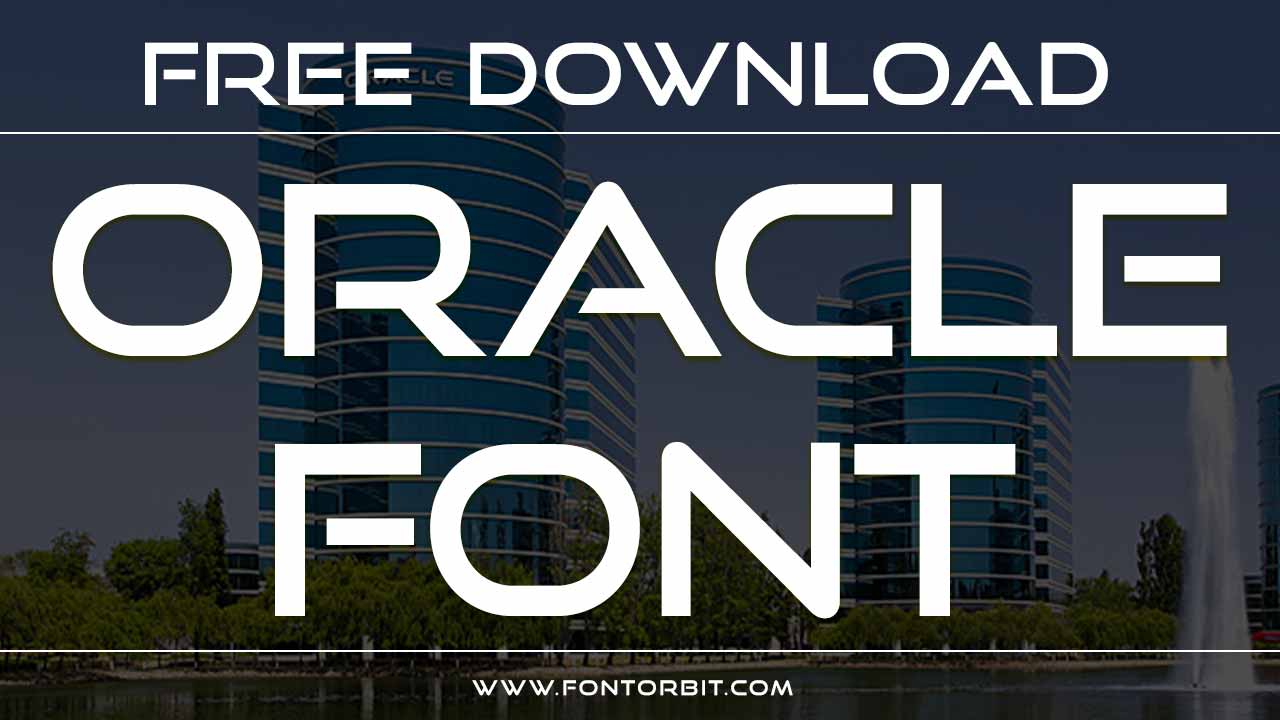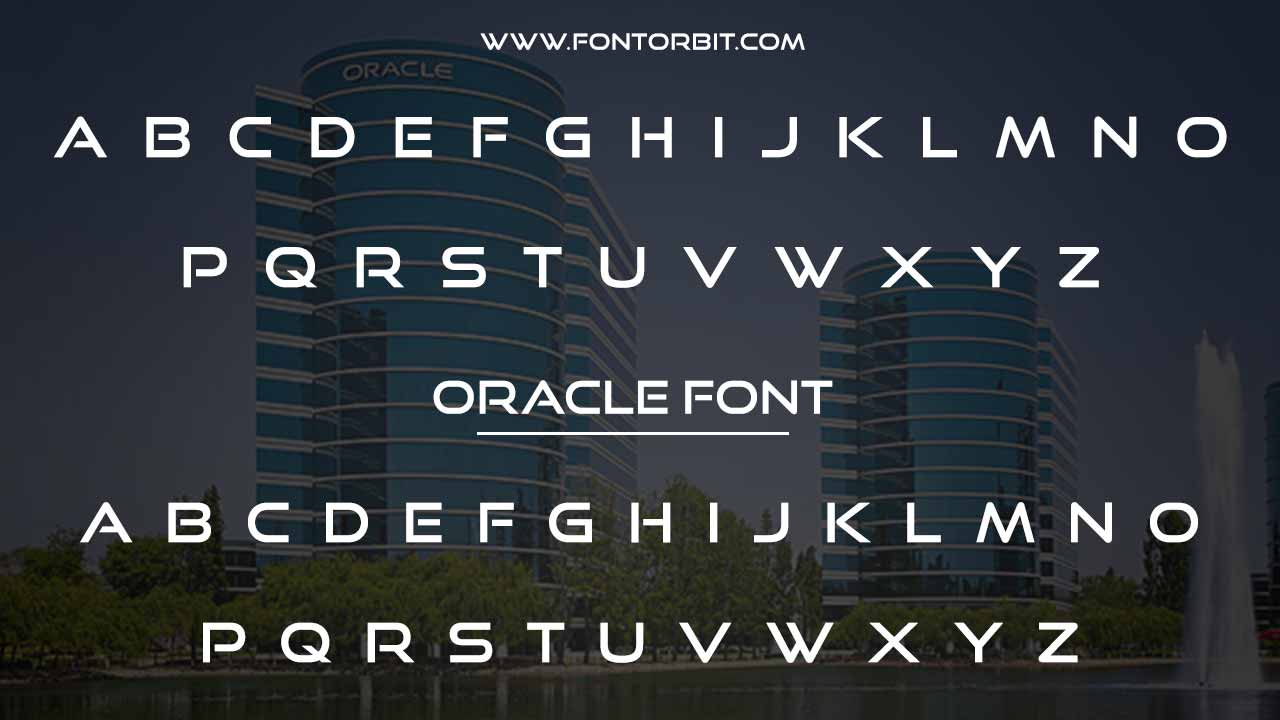
The Oracle Font, associated with Oracle Corporation, reflects the brand’s commitment to excellence in software and hardware solutions. Known for its professional and sophisticated appearance, the Oracle Font family was designed by Alper Çakıcı and published by Umka Type. The font embodies trust, innovation, and technological advancement, perfectly aligning with Oracle’s corporate identity. Over the years, Oracle’s logos and fonts have evolved to maintain a strong presence in the competitive enterprise software industry.
Types Of Oracle Font (Font Family)
Oracle’s branding incorporates various fonts that align with its corporate image. These fonts are selected to ensure readability, consistency, and a professional appeal across different mediums.
- Oracle Regular
Applications Of Oracle Font
The Oracle Font’s versatility makes it suitable for various professional contexts:
- Logo Design: Integral to Oracle’s visual identity, reinforcing its corporate image.
- Enterprise Applications: Used across Oracle Reports Builder, Analytics Publisher, and other business tools.
- Print Materials: Featured in brochures, reports, and marketing materials.
- Digital Interfaces: Seen in Oracle’s websites, dashboards, and software interfaces.
- Product Documentation: Used in user manuals and technical guides.
Oracle Font In Use
Oracle’s font enhances its brand’s authority and reliability. Its usage includes:
- Corporate Branding: Seen in Oracle’s official logos, reports, and presentations.
- Web Platforms: Ensures consistency in user experience across digital platforms.
- Enterprise Software: Applied within Oracle’s applications such as Oracle Reports and Oracle Analytics.
- Print Media: Utilized in whitepapers, business proposals, and product documentation.
Features Of The Oracle Font
- Professional Design: Maintains a corporate, authoritative aesthetic.
- Highly Readable: Ideal for enterprise documentation and digital platforms.
- Geometric Precision: Strikes a balance between functionality and modern appeal.
- Versatile Applications: Suitable for both digital and print media.
The Oracle Font is a cornerstone of the brand’s visual identity, reflecting trust, innovation, and enterprise-grade professionalism. Whether used in logos, reports, or digital platforms, its versatility ensures a consistent and authoritative presence.
1.What Font Does Oracle Use For Its Logo?
Oracle uses a custom-designed typeface for its logo that embodies professionalism and trust. It aligns with Oracle’s commitment to innovation and enterprise solutions.
3.What Is Unique About The Oracle Font?
The Oracle Font combines clarity, professionalism, and modernity, making it a perfect fit for enterprise-level communications.
4.Where Can The Oracle Font Be Used?
The Oracle Font is widely used in:
- Corporate Branding
- Digital Interfaces
- Business Reports
- Technical Documentation
5.Are There Similar Fonts To Oracle’s Typeface?
Yes, fonts like Helvetica, Roboto, and Arial offer a similar clean and professional style suitable for business applications.
6.How Has The Oracle Font Evolved With The Brand?
Oracle’s branding has evolved over the years, with the font adapting to reflect its forward-thinking, modern enterprise image.
7.Why Is The Oracle Font Significant In Enterprise Technology?
The Oracle Font reinforces the brand’s authority in the technology sector by offering a clean and professional visual appeal that resonates with businesses worldwide.